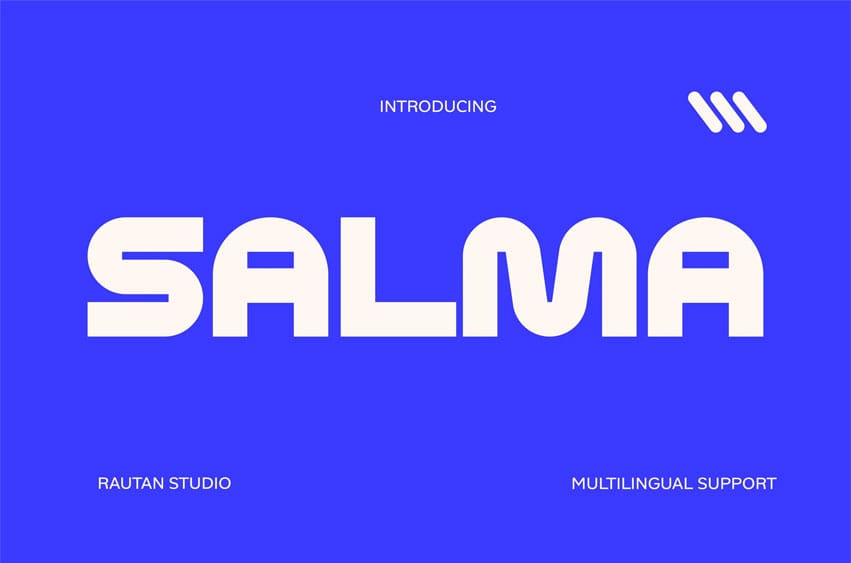
Salma Font is a futuristic geometric tech display typeface designed for bold digital headlines, featuring rounded geometric shapes, wide proportions, and smooth modular curves that create a confident, modern visual rhythm. The structure feels clean, futuristic, and slightly arcade-inspired, making it highly suitable for gaming graphics, tech branding, digital posters, and modern UI headlines.
Its balanced geometric construction and soft rounded terminals give the letters a strong yet approachable personality. This makes SALMA ideal for designers who want a tech-forward visual identity while keeping typography readable and visually distinctive. With multilingual support for 67 languages, SALMA also works well for international branding, startup visuals, and global digital campaigns.
If your project needs bold futuristic energy, SALMA delivers a visual tone that instantly connects with gaming culture, tech startups, esports branding, arcade posters, and modern digital interfaces. The geometric shapes create high-impact headlines that stand out in thumbnails, social feeds, and app UI banners.
From YouTube thumbnails and gaming posters to tech branding and digital product launches, SALMA helps designers create typography that feels confident, energetic, and forward-looking.
Key Features : Bold Geometric Construction
- Strong modular shapes inspired by futuristic and arcade aesthetics
- Balanced proportions for striking display typography
Tech & Gaming Visual Style
- Designed for esports graphics, gaming posters, and tech branding
- Perfect for digital-first design environments
High-Impact Headlines
- Wide letterforms create strong visual presence
- Excellent for titles, logos, and hero typography
Modern Digital Compatibility
- Works smoothly in UI graphics, posters, thumbnails, and branding systems
Multilingual Support
- Supports 67 languages, enabling global design use